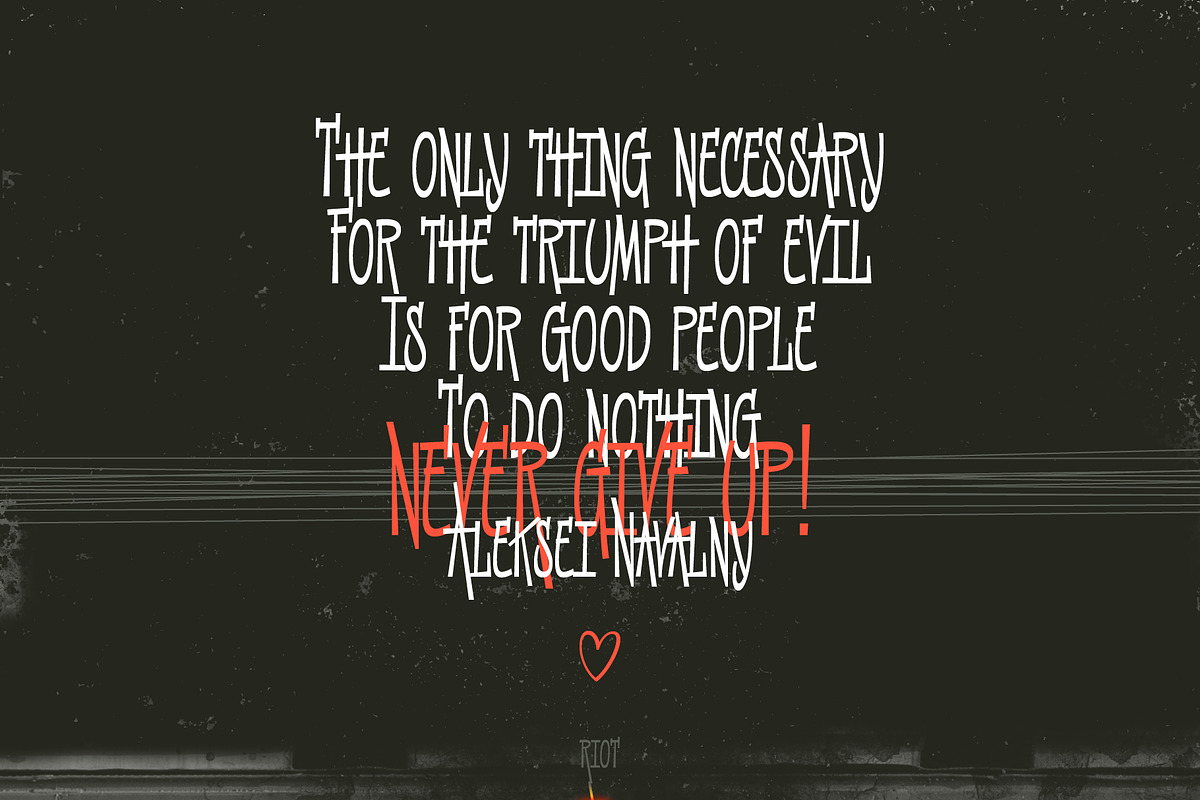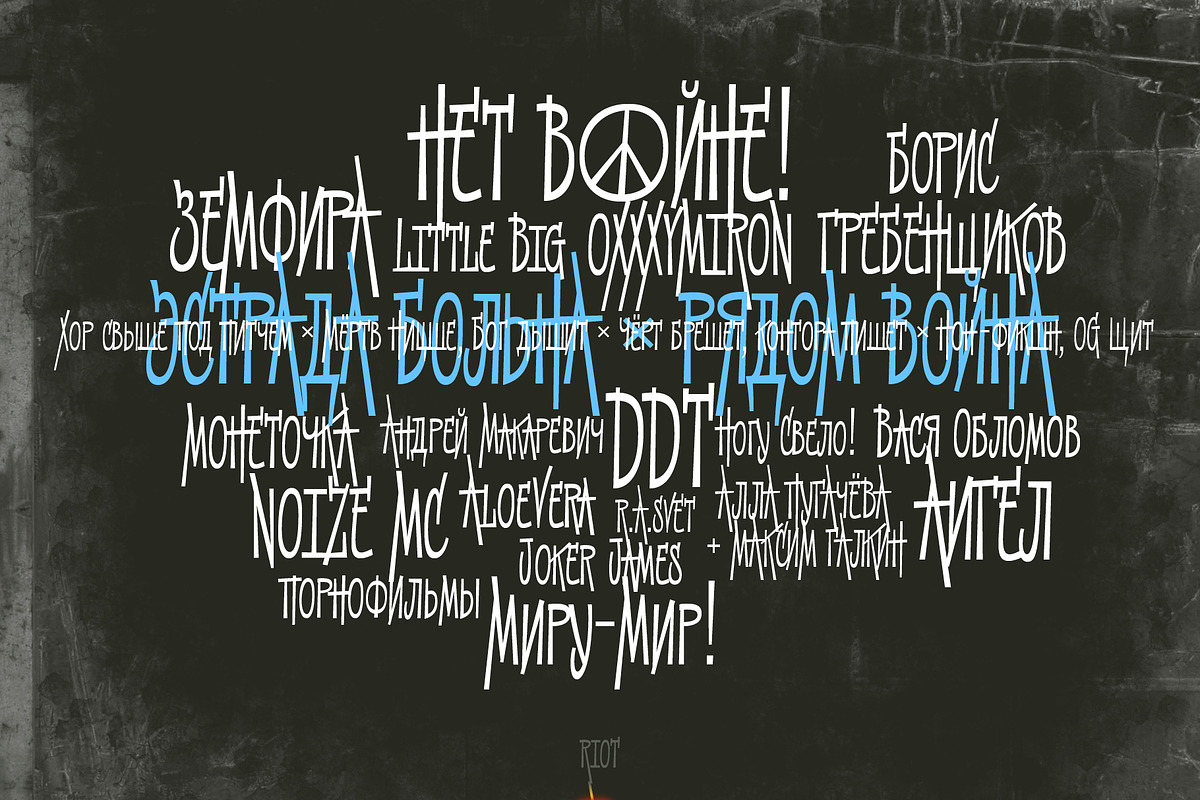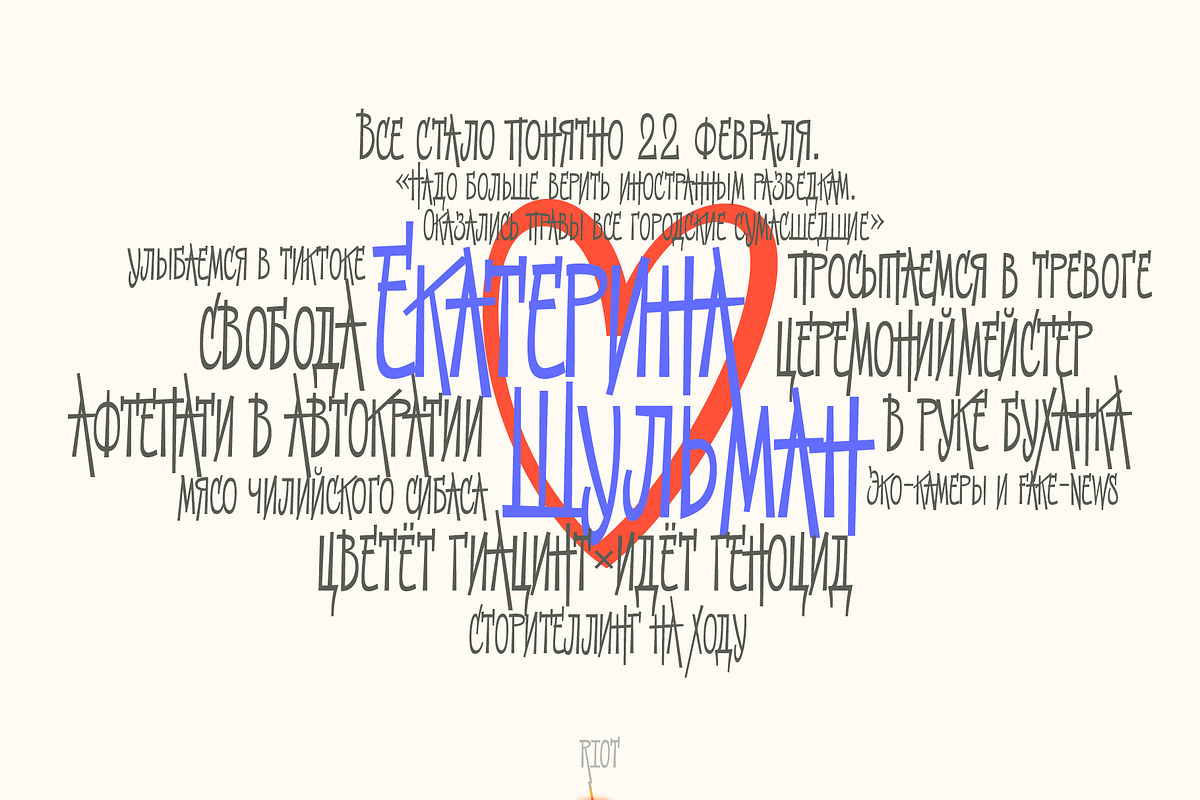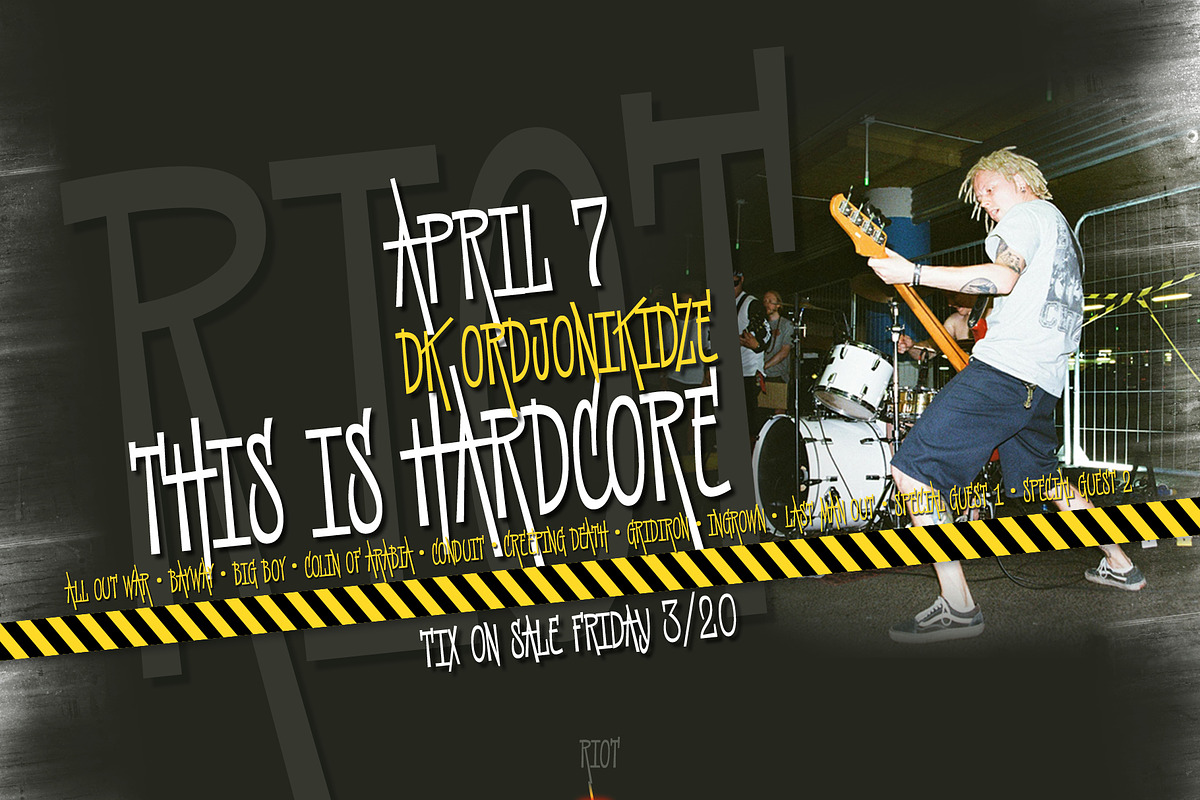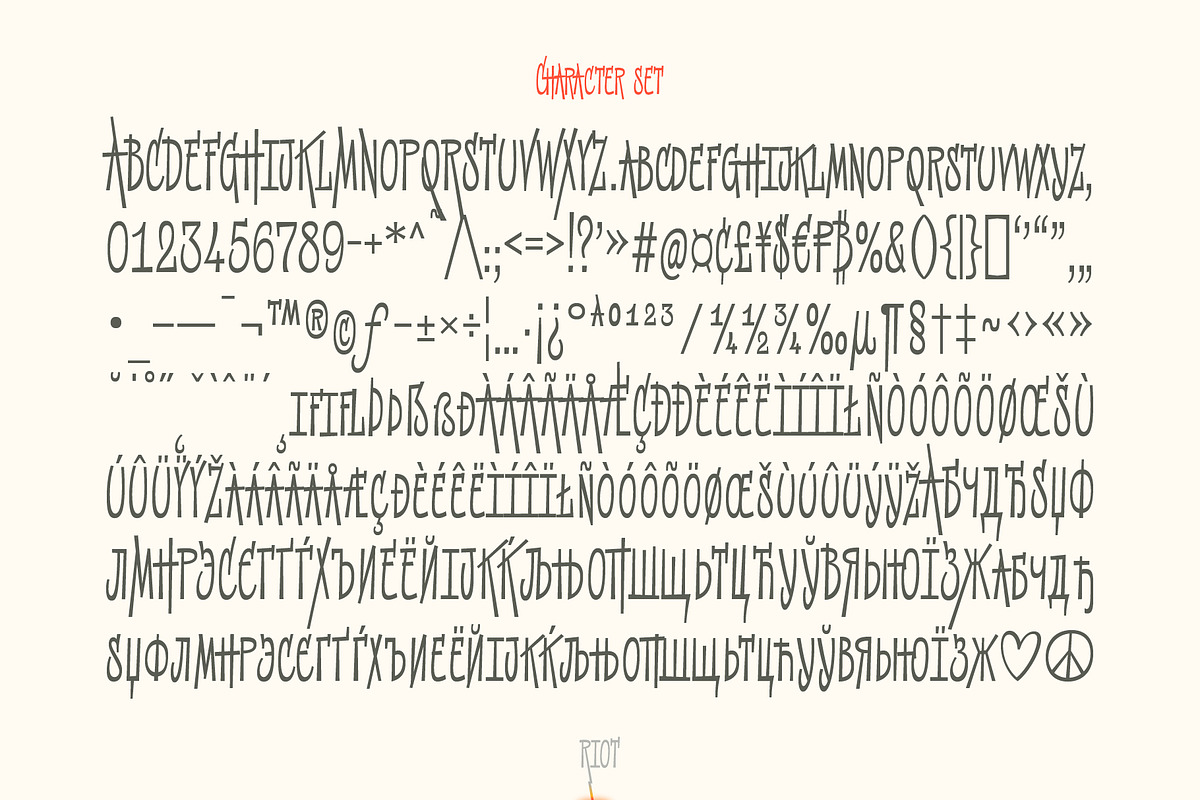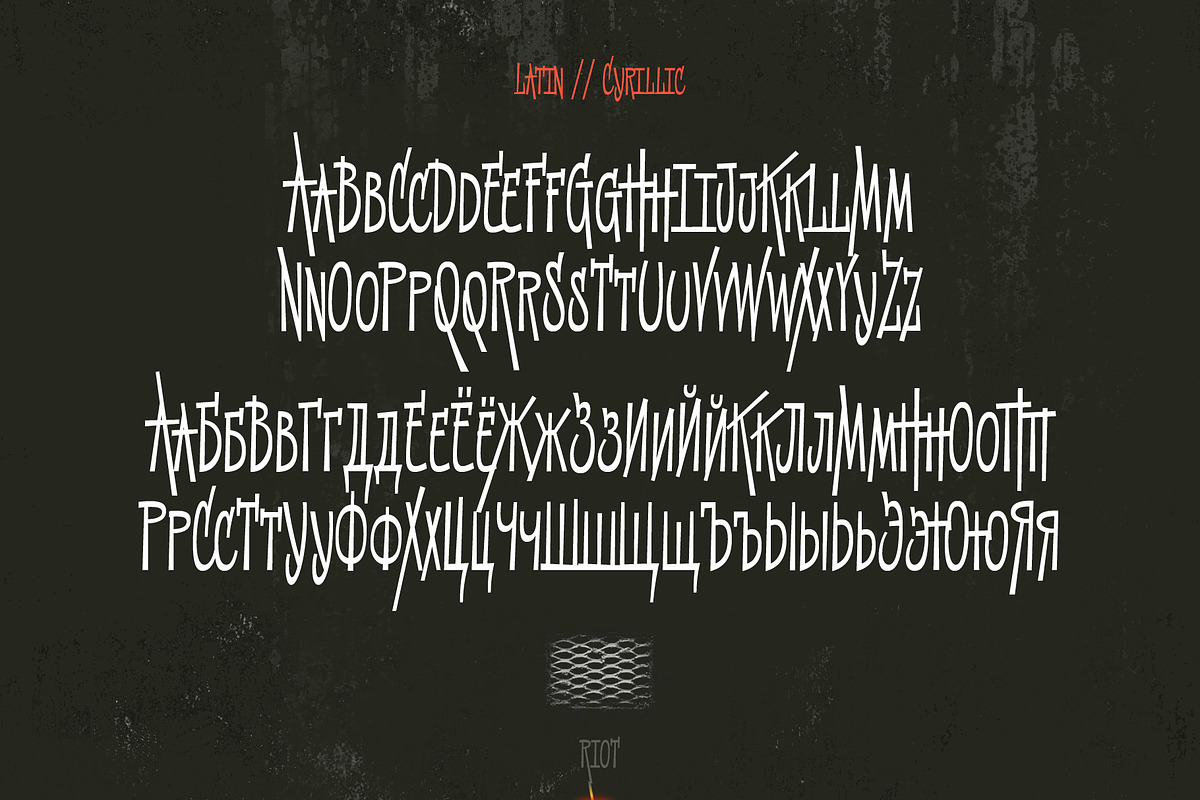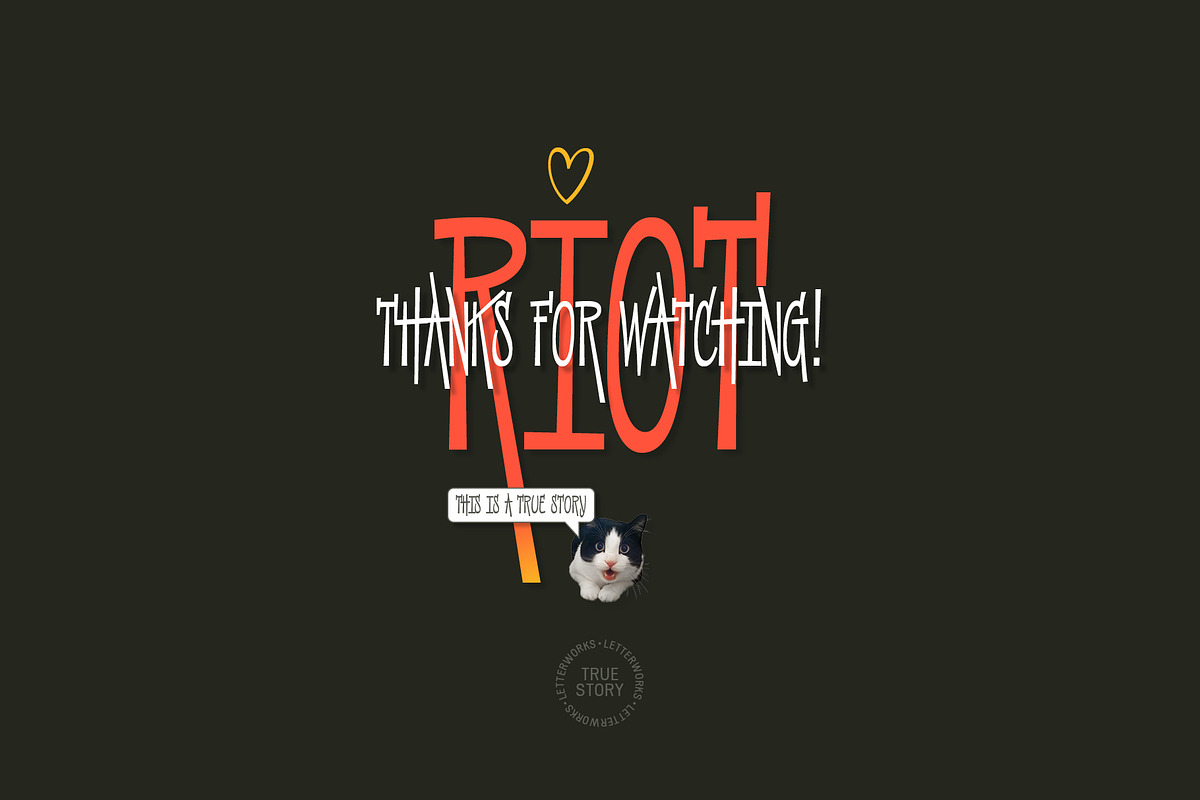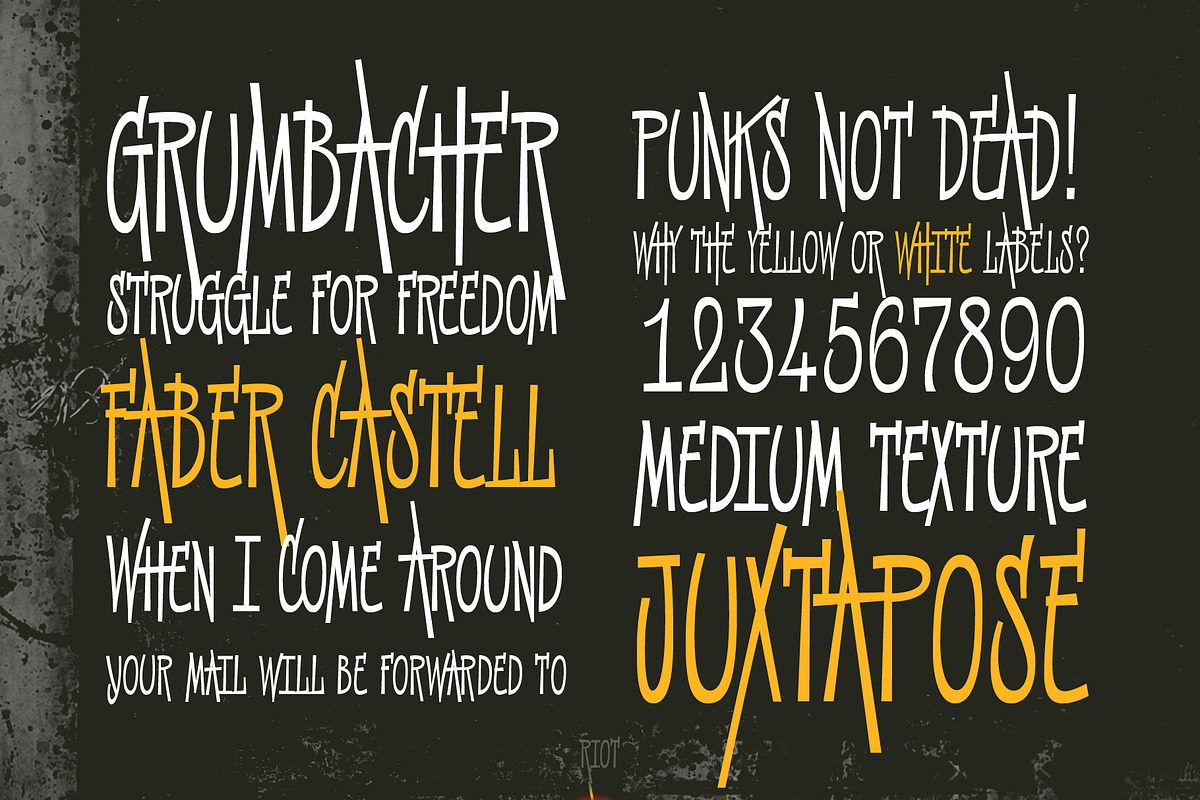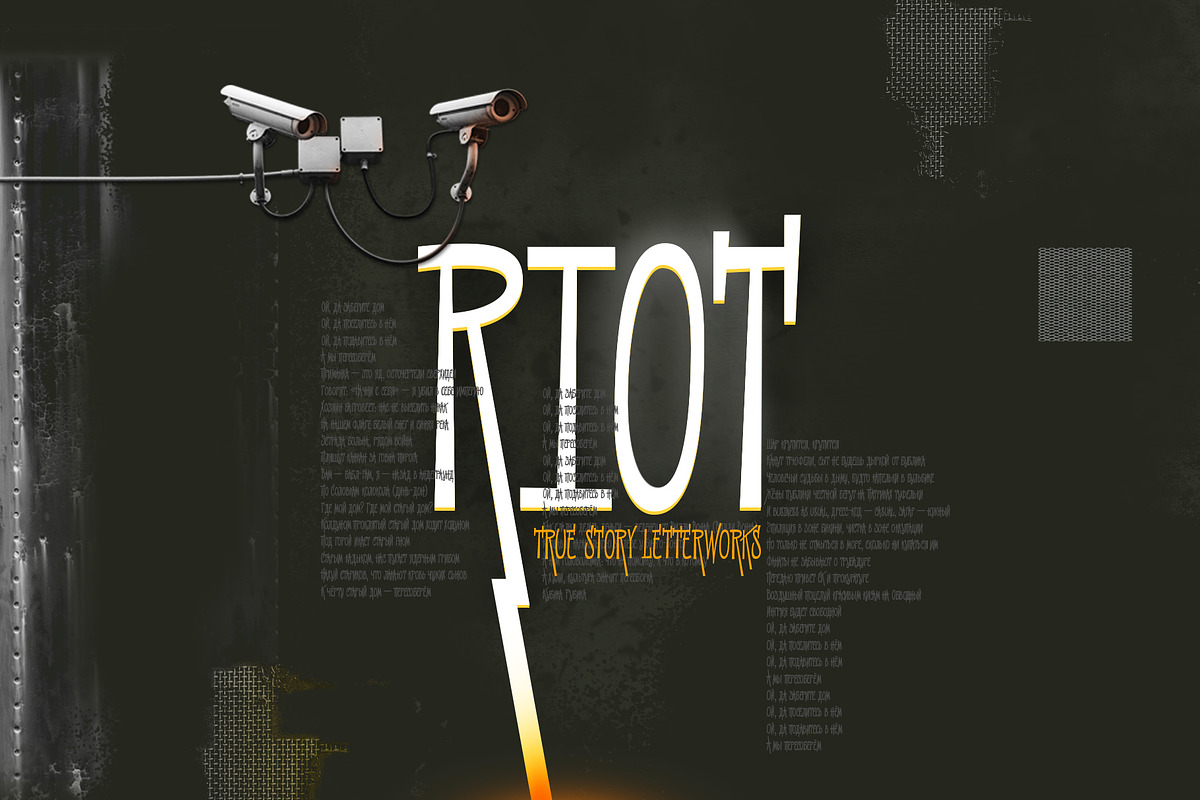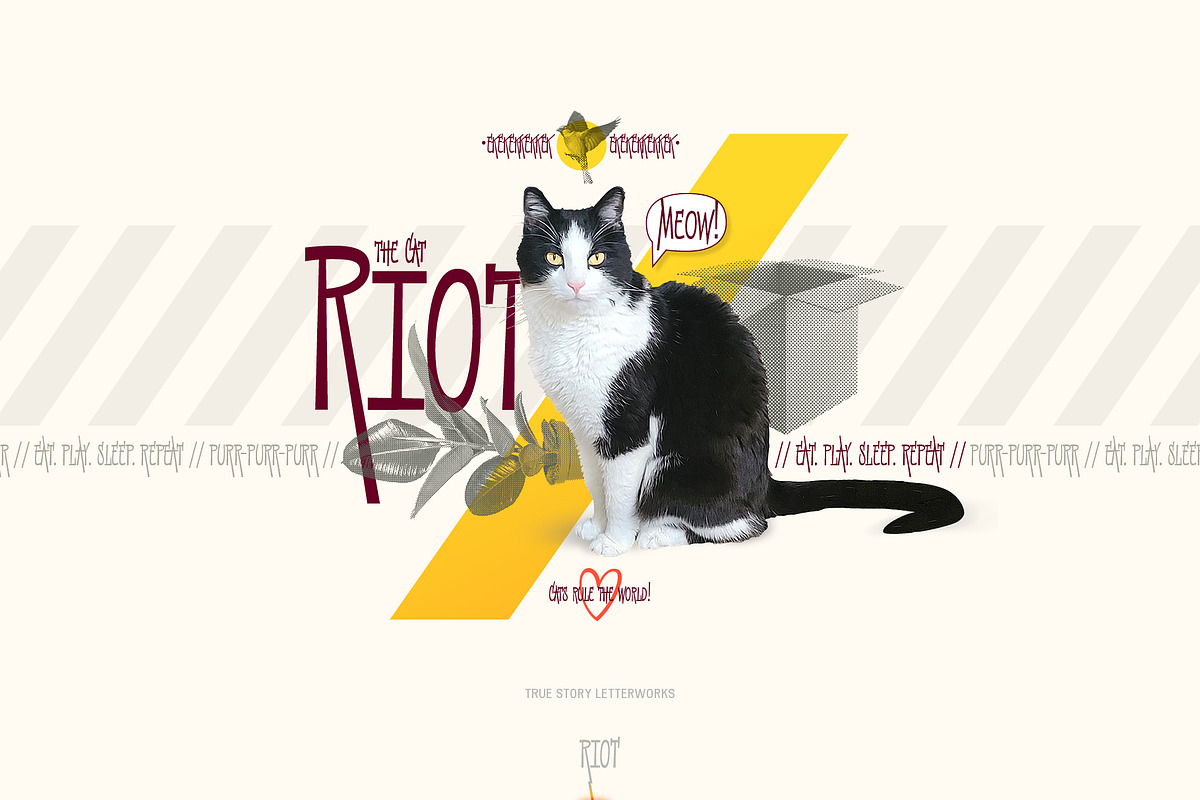
Riot is a display typeface. The handwritten script is used as a basis. Works well with posters, and banners. The sweeping expression of the font would work well for the credits or title of a horror film.